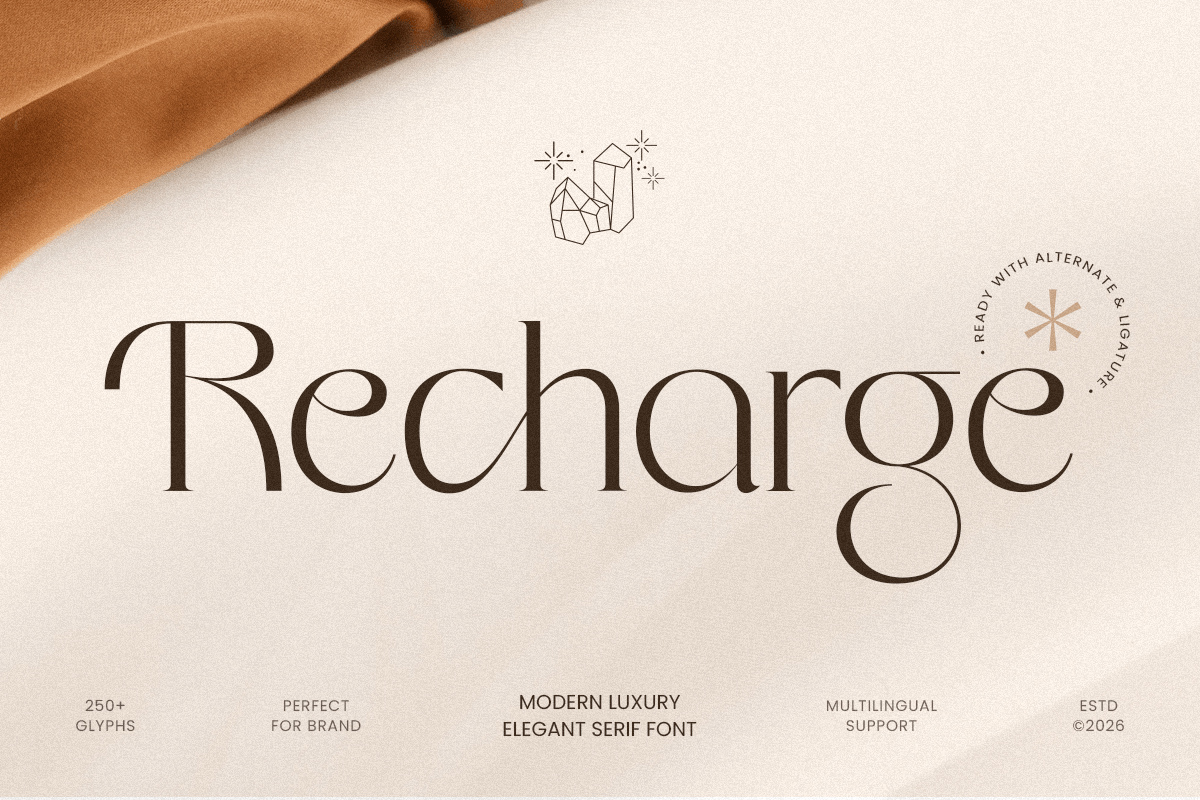
Recharge
-Modern Editorial Logo Serif Font
Recharge - Modern Editorial Logo Serif Font
Recharge is a modern luxury elegant serif font designed to deliver refined sophistication with a sleek contemporary presence. Featuring graceful serif details, balanced proportions, and a polished typographic rhythm, this typeface creates a premium visual tone that feels stylish, confident, and instantly brand-ready.
Built for high-end branding and editorial typography, Recharge works beautifully across logos, wordmarks, magazine headlines, website headers, packaging, labels, invitations, presentations, signage, and upscale marketing visuals. Its elegant structure maintains strong readability while adding a luxurious aesthetic that enhances both digital and print layouts.
Whether you’re building a fashion identity, developing a beauty brand, designing premium packaging, or crafting editorial compositions with a refined tone, Recharge provides a sophisticated serif foundation that elevates your typography with timeless luxury.
Inspiration Behind Recharge
Recharge is inspired by contemporary luxury branding and modern editorial typography—where refined contrast, elegant rhythm, and confident structure shape high-end visual identity. The design emphasizes balance, clarity, and premium aesthetics to support sophisticated branding and stylish communication.
Recharge Font Features:
• Modern luxury serif letterforms with elegant high-end character
• Perfect for premium logos, wordmarks, and editorial headlines
• Clean structure for refined layouts and strong readability
• Luxury logos, wordmarks, and premium brand identity systems
• Fashion, beauty, skincare, fragrance, and boutique branding
• Editorial layouts, magazine covers, lookbooks, and headlines
• Premium packaging, labels, invitations, and elegant stationery
• Social media campaigns, websites, presentations, and marketing assets